What is a Font?
A font is a complete set of characters (letters, numbers, symbols, and punctuation) in one specific style and weight of a typeface. Helvetica is a typeface; Helvetica Bold is a font. On computers, a font is the file that tells the screen how to draw those characters at any size.
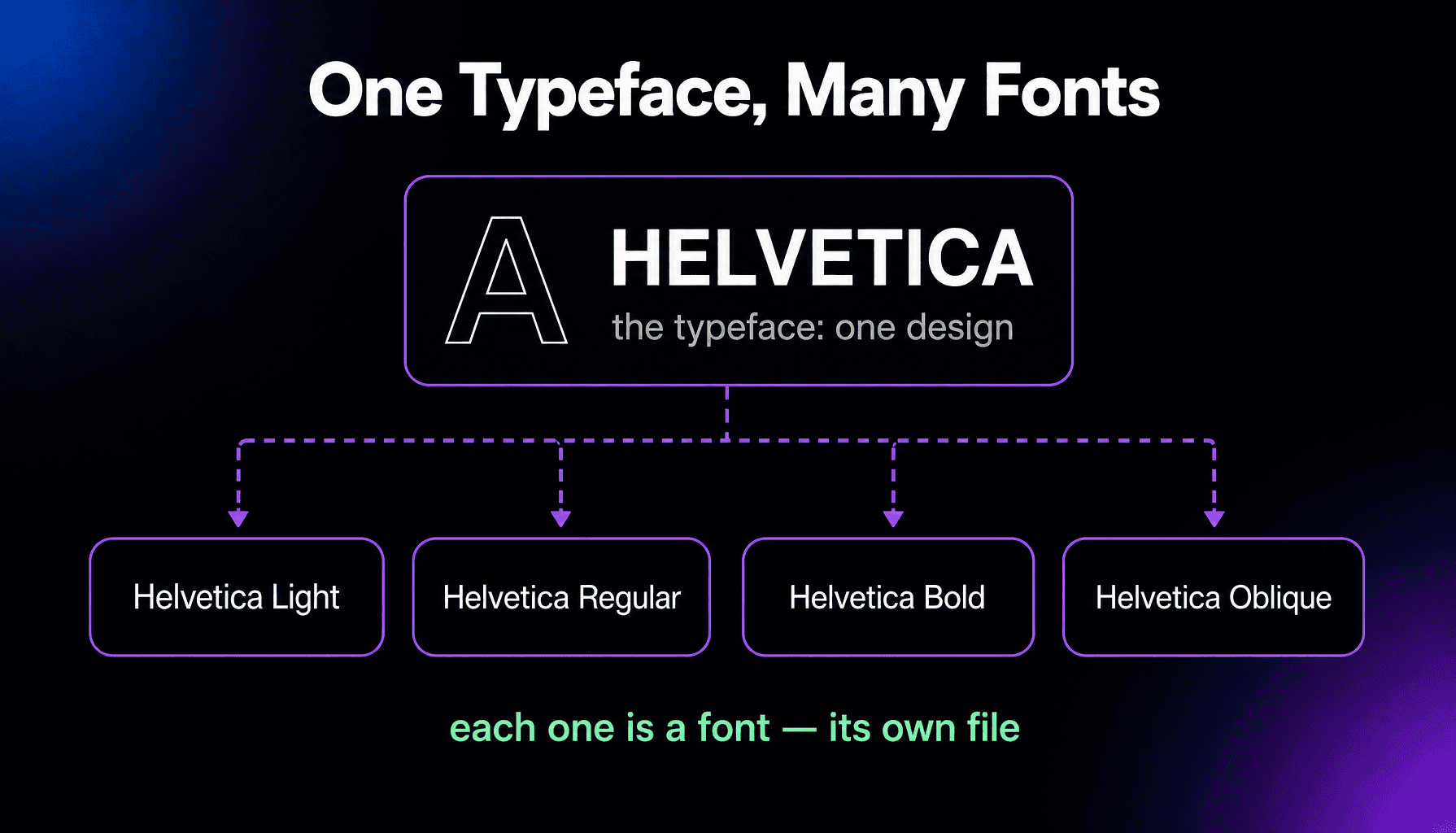
More About Fonts
The term goes back to metal printing. A font was one complete set of cast-metal characters in a single size, weight, and style. The word comes from the French fonte, "a casting," because all the letters in a set were cast together from molten metal. Digital type kept the word: today each font is a file, and a family like Helvetica ships as several of them, as shown above.
What's the difference between a font and a typeface?
A typeface is the design; a font is one version of it you can actually use. In everyday use the two words have blurred together, and even font menus mix them, so no one will fault you for saying "font" everywhere. The difference mostly matters when you license or organize fonts, since you buy and manage each weight and style separately.
How do fonts work on a website?
A browser can only draw text with a font it can reach. That happens two ways: system fonts already installed on the visitor's device, or web fonts the page downloads along with its CSS. Web fonts freed designers from the short list of "web-safe" fonts that most computers already had, and they're now the norm. Your stylesheet lists backup choices in case a font fails to load; that priority list is the font-family stack.
How do you choose fonts for a website?
Start with readability, not personality. Body text has to stay comfortable at small sizes and long lengths. That's why most sites set paragraphs in a plain serif or sans serif and save expressive display type for headings. Two families, one for headings and one for body text, cover most designs. Check your choices on a phone screen first; type that looks elegant on a desktop can fall apart at mobile sizes.
Frequently Asked Questions
- The handful of fonts preinstalled on nearly every desktop and laptop, like Arial, Georgia, Times New Roman, Verdana, and Courier New. Phones are a different story: Android ships its own fonts and lacks most of these. Today web-safe fonts mostly serve as fallbacks, the fonts your text shows in if your web font fails to load.
- They can. Every family, weight, and style you use is another file to download, and big font files delay how quickly text appears. Trim the list of weights, use the compressed WOFF2 format, and consider system fonts for body text if speed is critical.
- A single font file that contains a continuous range of weights and widths instead of one fixed style. One variable font can replace half a dozen separate files, which saves downloads. All major browsers have supported them for years.